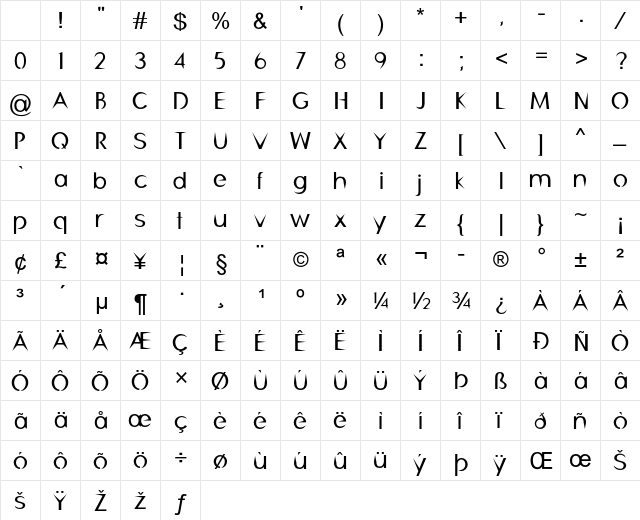
Complete Skewer Regular glyph index. Displaying only characters natively supported by Skewer Regular font.
Skewer is a composed and adaptable typeface that performs quietly and consistently across a wide range of design contexts.